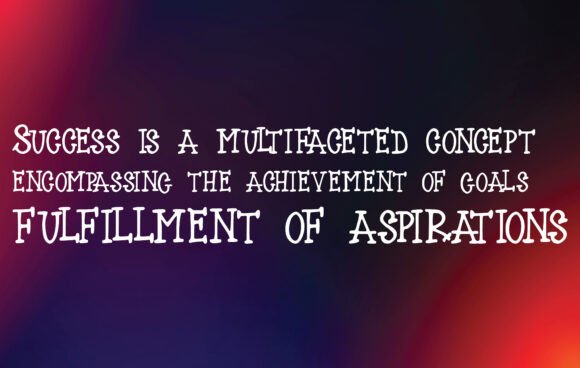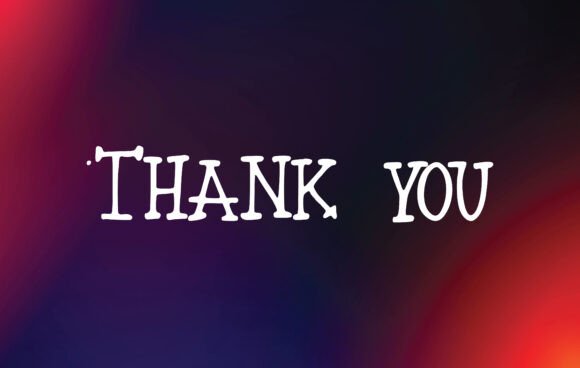
Introducing Asling Font: Your New Go-to Favorite for Creative Projects
Are you tired of using the same old fonts for your creative projects? Look no further than Asling Font, a versatile and eye-catching typeface designed to bring your ideas to life. With its clear and easy-to-read design, Asling Font is perfect for both titles and body text, making it a great choice for a wide range of applications.
What Makes Asling Font So Special?
Asling Font is made to be a go-to favorite for designers and crafters alike. Its unique design combines style and personality, making it perfect for projects that require a bit of flair. Whether you’re designing magazine covers, t-shirts, social media posts, branding, wedding invitations, or greeting cards, Asling Font fits right in with its versatility and charm.
Key Features of Asling Font
- Versatility: Asling Font is designed to be used in a variety of contexts, from titles and headings to body text and captions.
- Eye-catching design: With its unique and stylish design, Asling Font is sure to grab attention and make your projects stand out.
- Clear and easy to read: Despite its stylish design, Asling Font remains clear and easy to read, making it perfect for both print and digital applications.
- Personality: Asling Font has a unique personality that shines through in its design, making it perfect for projects that require a bit of flair and style.
Use Cases for Asling Font
Asling Font is perfect for a wide range of creative projects, including:
- Magazine covers: Use Asling Font to create eye-catching headlines and titles that grab attention.
- T-shirts and apparel: Asling Font is perfect for designing stylish and eye-catching text for t-shirts and other apparel.
- Social media posts: Use Asling Font to create engaging and stylish social media posts that stand out from the crowd.
- Branding: Asling Font is a great choice for branding projects, including logos, business cards, and letterheads.
- Wedding invitations: Add a touch of style and elegance to your wedding invitations with Asling Font.
- Greeting cards: Use Asling Font to create beautiful and stylish greeting cards for any occasion.
Why Choose Asling Font?
With so many fonts to choose from, why should you choose Asling Font? Here are just a few reasons:
- Unique design: Asling Font has a unique design that sets it apart from other fonts.
- Versatility: Asling Font can be used in a wide range of contexts and applications.
- Easy to read: Despite its stylish design, Asling Font remains clear and easy to read.
- Personality: Asling Font has a unique personality that shines through in its design.
In conclusion, Asling Font is a versatile and eye-catching typeface that is perfect for designers and crafters looking to add a bit of style and personality to their projects. With its clear and easy-to-read design, Asling Font is perfect for both titles and body text, making it a great choice for a wide range of applications. Whether you’re designing magazine covers, t-shirts, social media posts, branding, wedding invitations, or greeting cards, Asling Font is sure to bring your creative ideas to life.